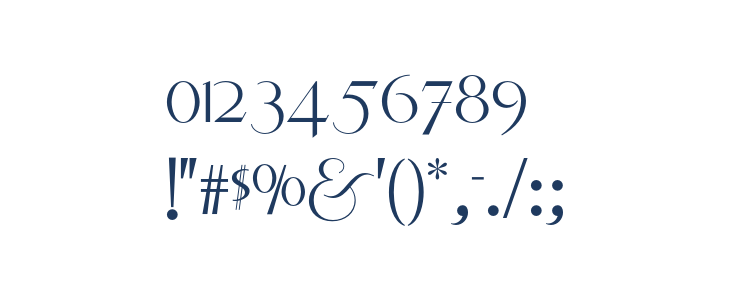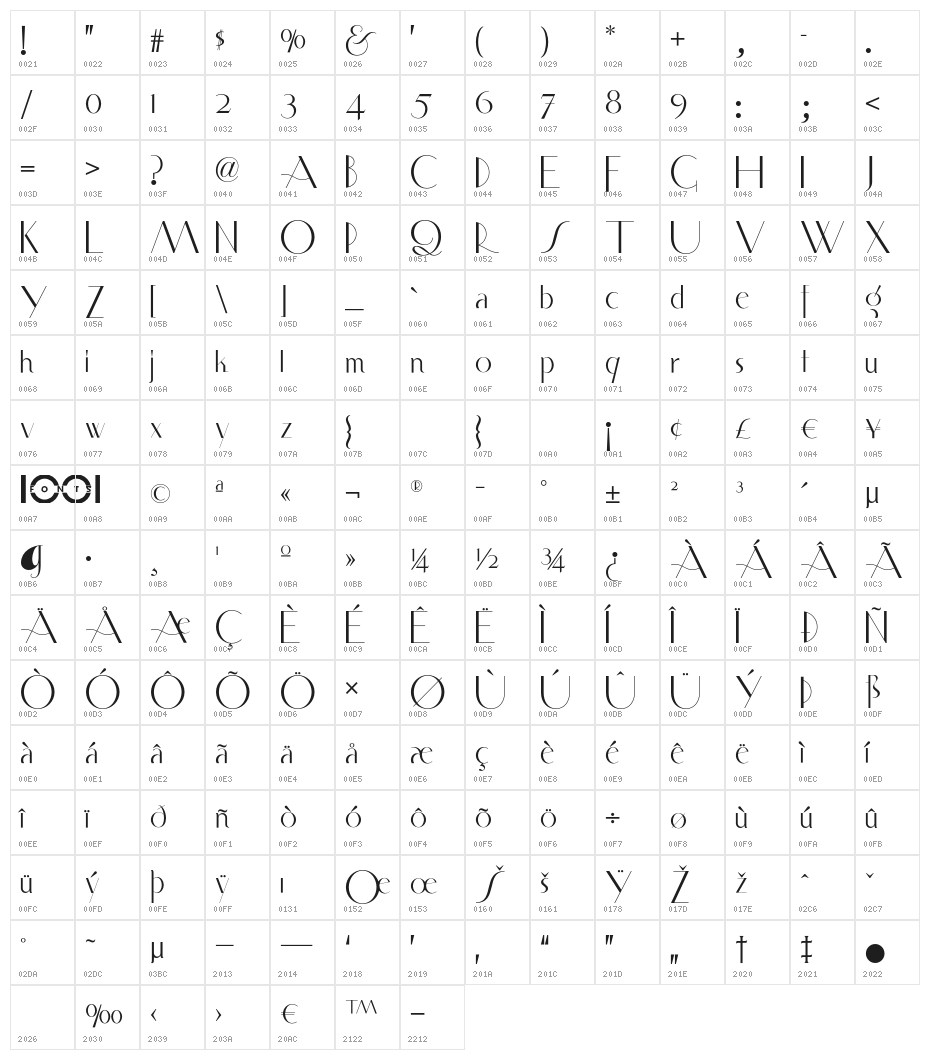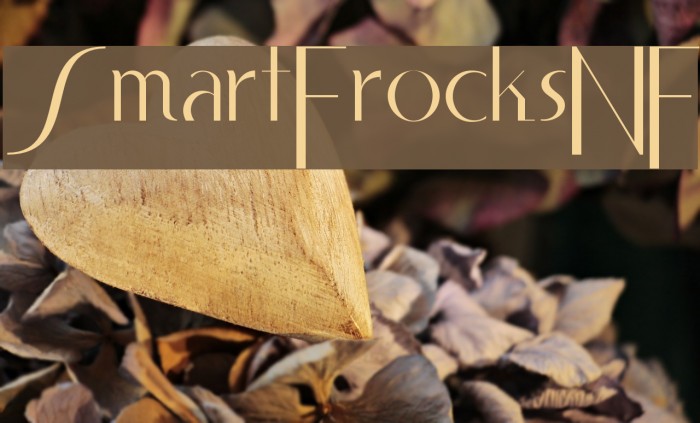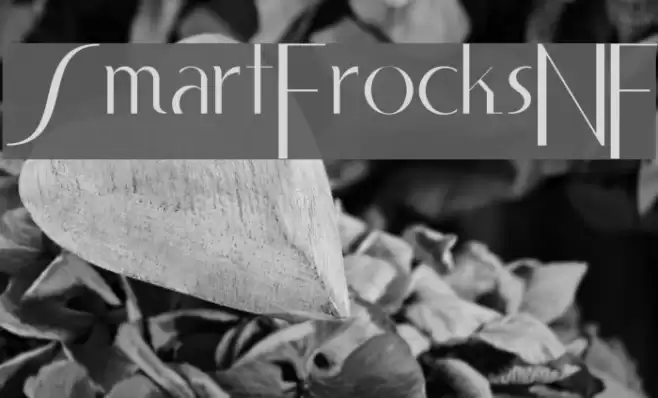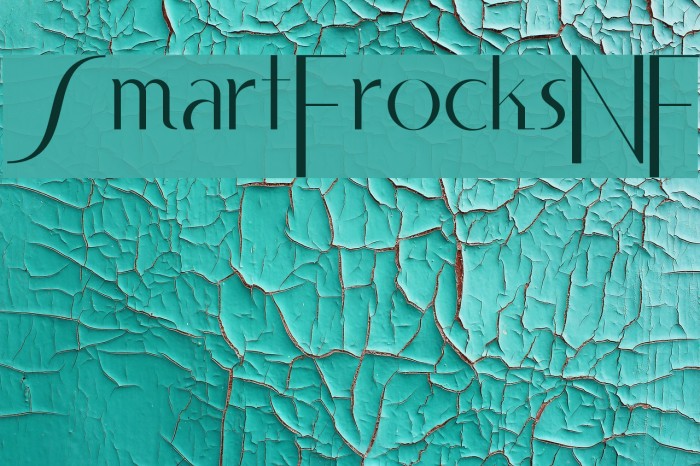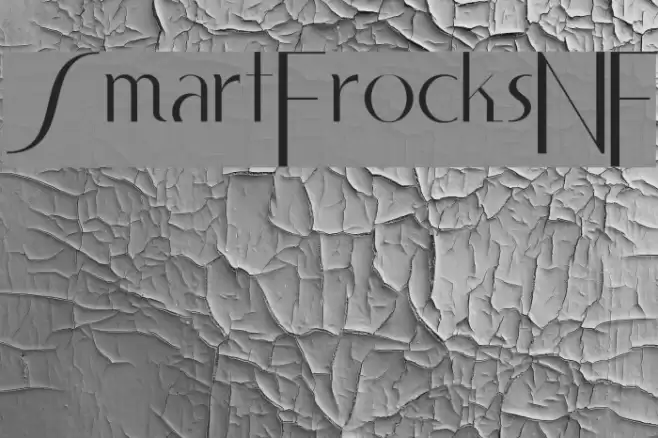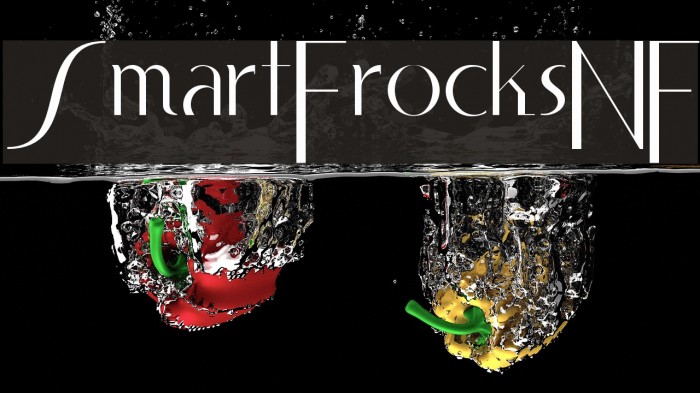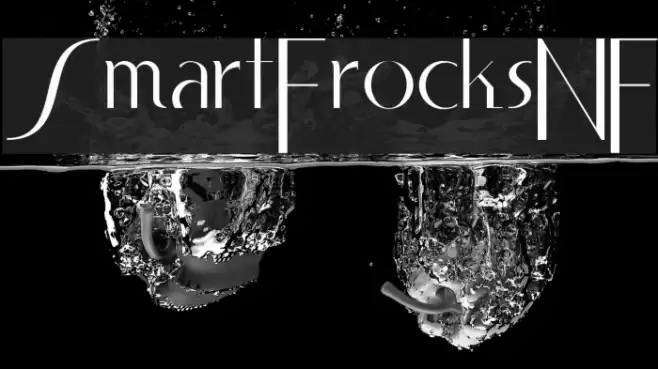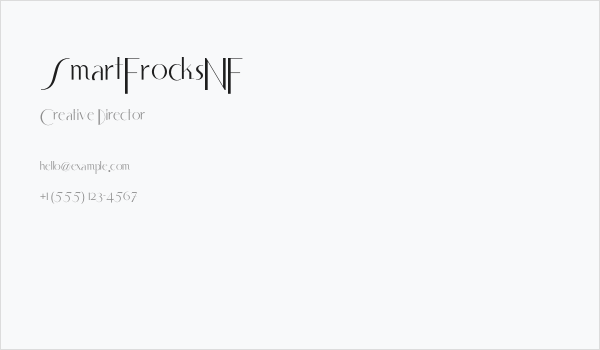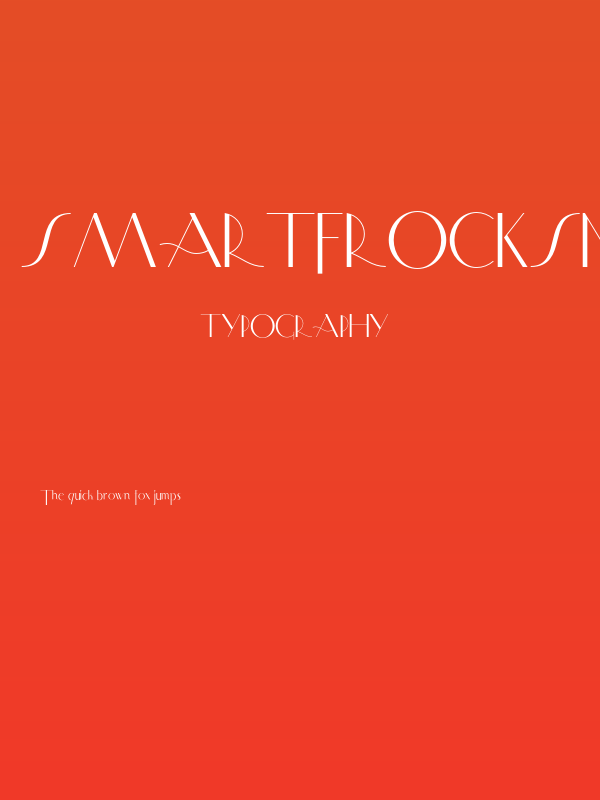
SmartFrocksNF Font
SmartFrocksNF Description
This font features a unique and artistic design, characterized by its elegant and flowing lines. The uppercase letters exhibit a blend of sharp angles and smooth curves, creating a sophisticated and modern appearance. The lowercase letters maintain a consistent style, with some characters featuring distinctive flourishes that add to the font's decorative nature. The numerals are designed with a similar aesthetic, ensuring a cohesive look across all characters. Special characters are included, each crafted with the same attention to detail, making this font versatile for various design needs.